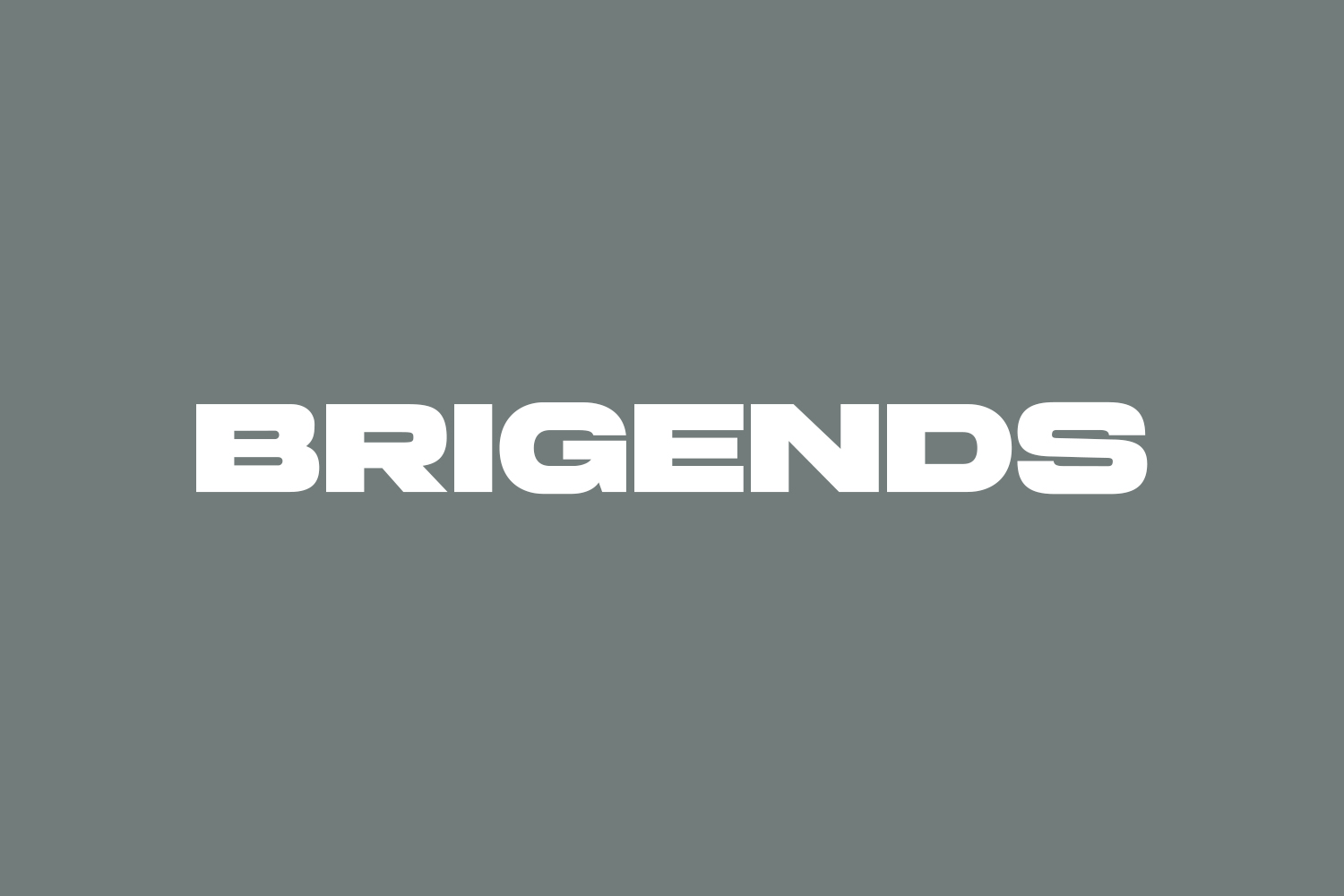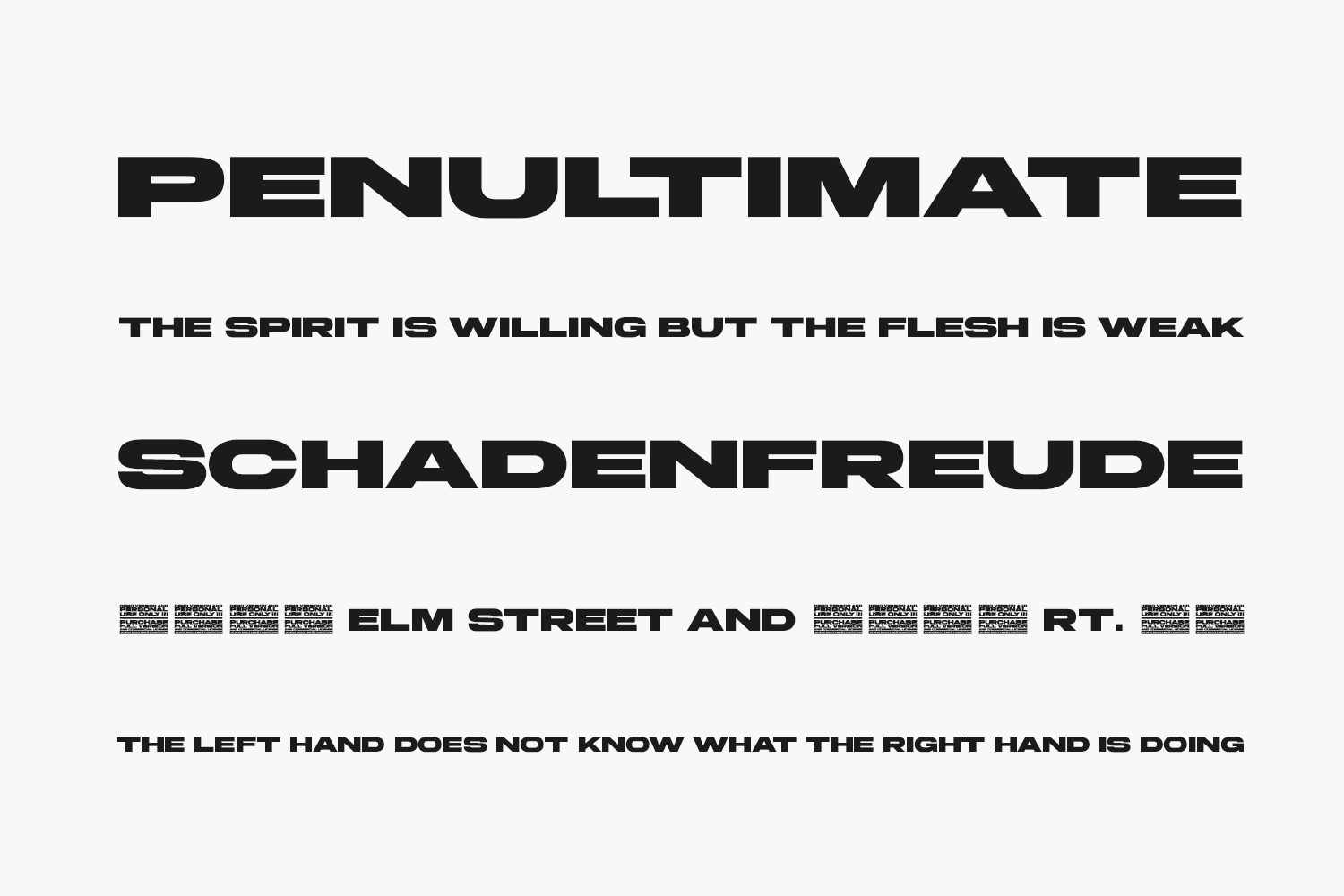
Brigends Expanded is a bold, wide sans‑serif display font from Multype Studio, designed to make a strong visual impact. With clean geometric shapes, expanded proportions, and high x‑height, it’s perfect for posters, book covers, magazine layouts, logos, social media graphics, and headlines. The demo version includes uppercase letters, numerals, and symbols in OTF format for personal use. To use it commercially or for corporate purposes, a license is required from the designer.
Why Choose Brigends Expanded?
- Bold & Wide Design: Geometric letterforms with an extra‑wide stance deliver visual dominance.
- Strong Brand Character: Ideal for attention‑grabbing headlines, logos, and titles.
- PUA‑Encoded: Supports special glyphs without additional software.
Where to Use Brigends Expanded?
- Posters & Flyers: Bold hero headlines in event, music, or promotional posters.
- Magazine & Editorial Layouts: Striking feature titles and section headers.
- Logos & Branding: Makes memorable wordmarks for sports, tech, or industrial brands.
- Book & Album Covers: Fits genres needing clean, bold typography.
- Social Graphics: Perfect for bold Instagram quotes or YouTube thumbnails.
Design Tips with Brigends Expanded
Use the full-width style at large sizes (36pt+) to maximize impact. Pair with a neutral sans‑serif like Open Sans or Roboto for subtle contrast. Consider high‑contrast color palettes for maximum pop. Suitable for both digital and print formats—just watch kerning on tight headlines.
- Glyphs: Uppercase A–Z, numerals, punctuation, basic Latin (≈242 glyphs).
- Language Support: Latin, Western European, Indonesian, Cebuano, Swahili and more.